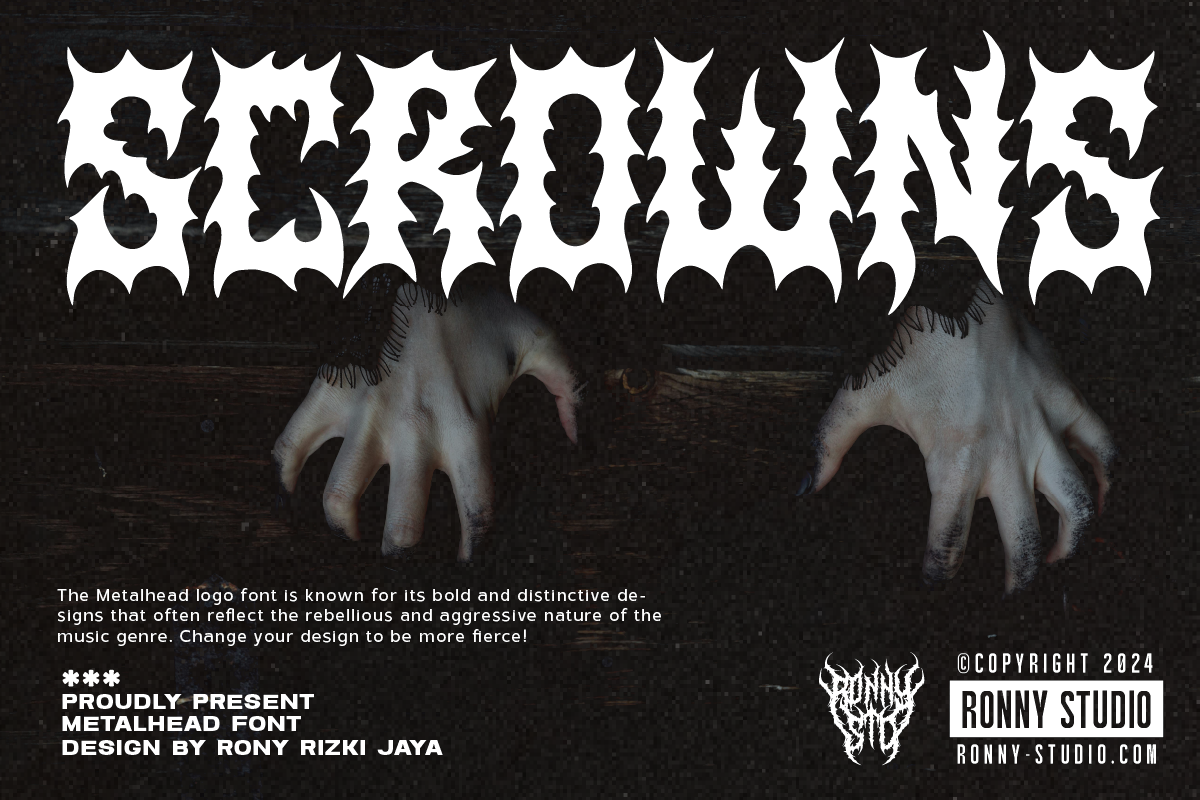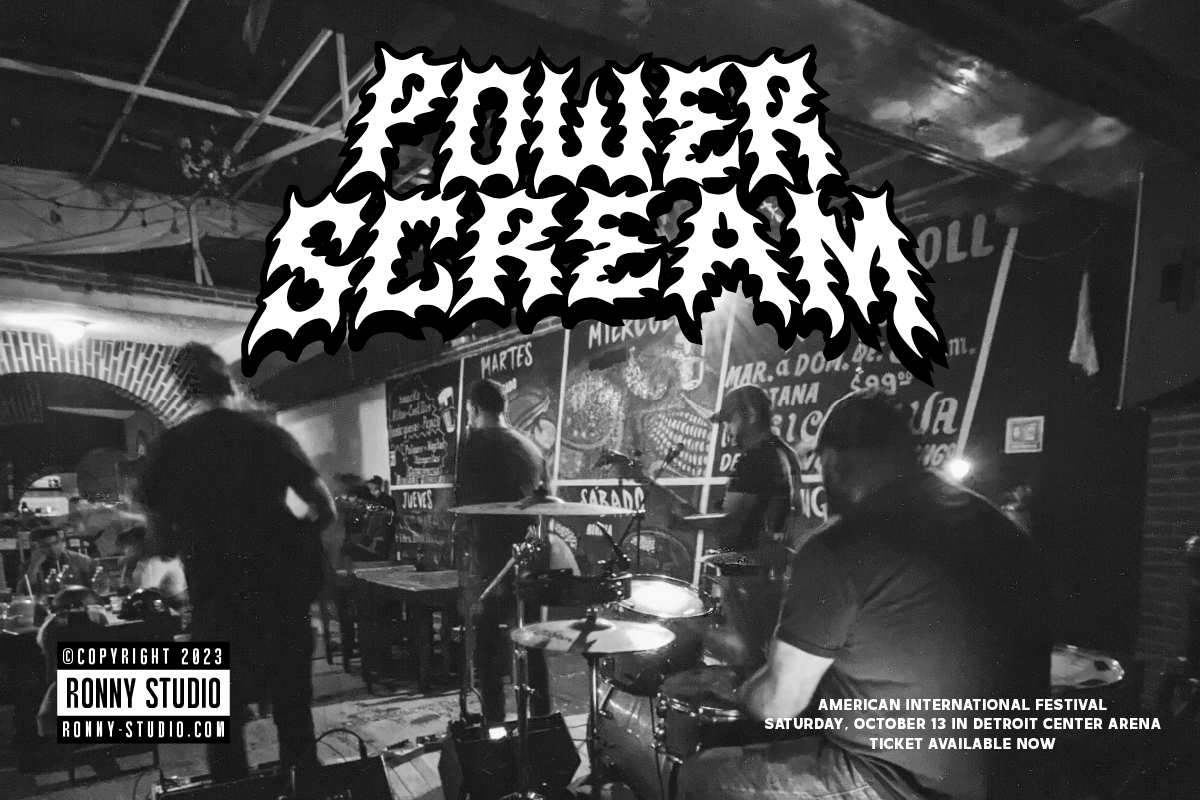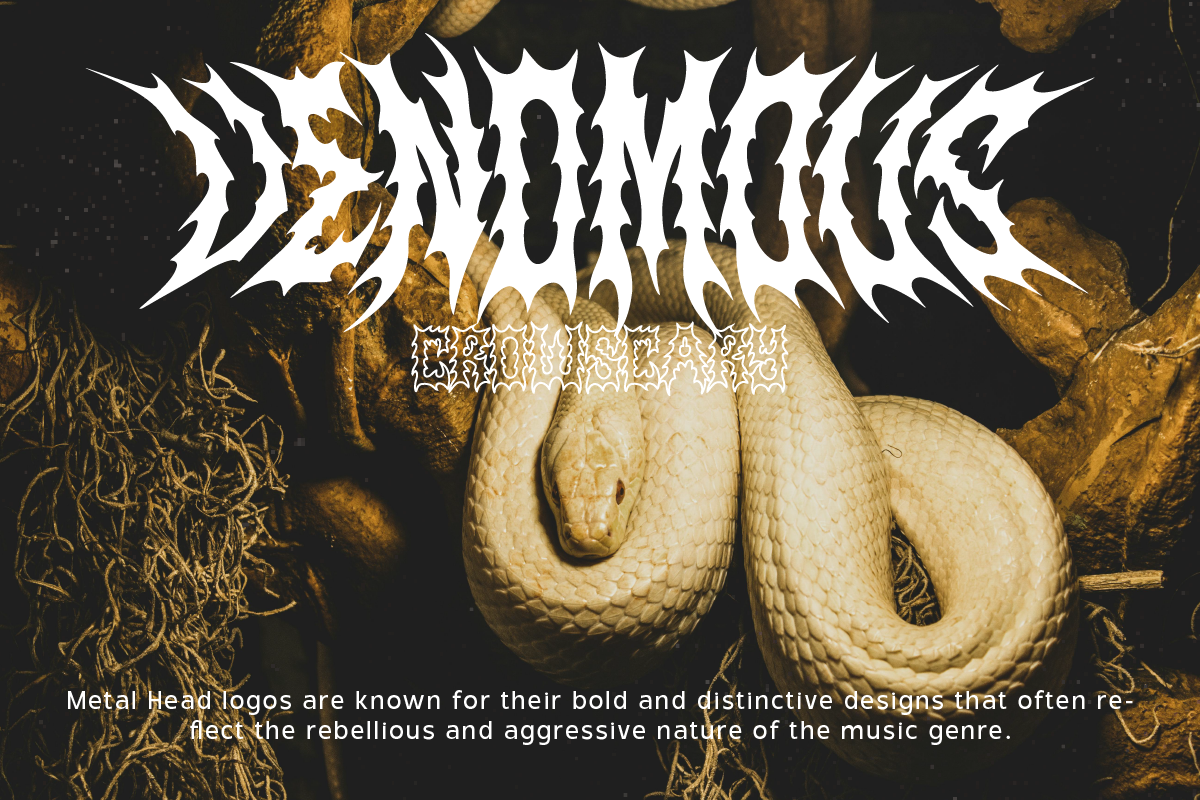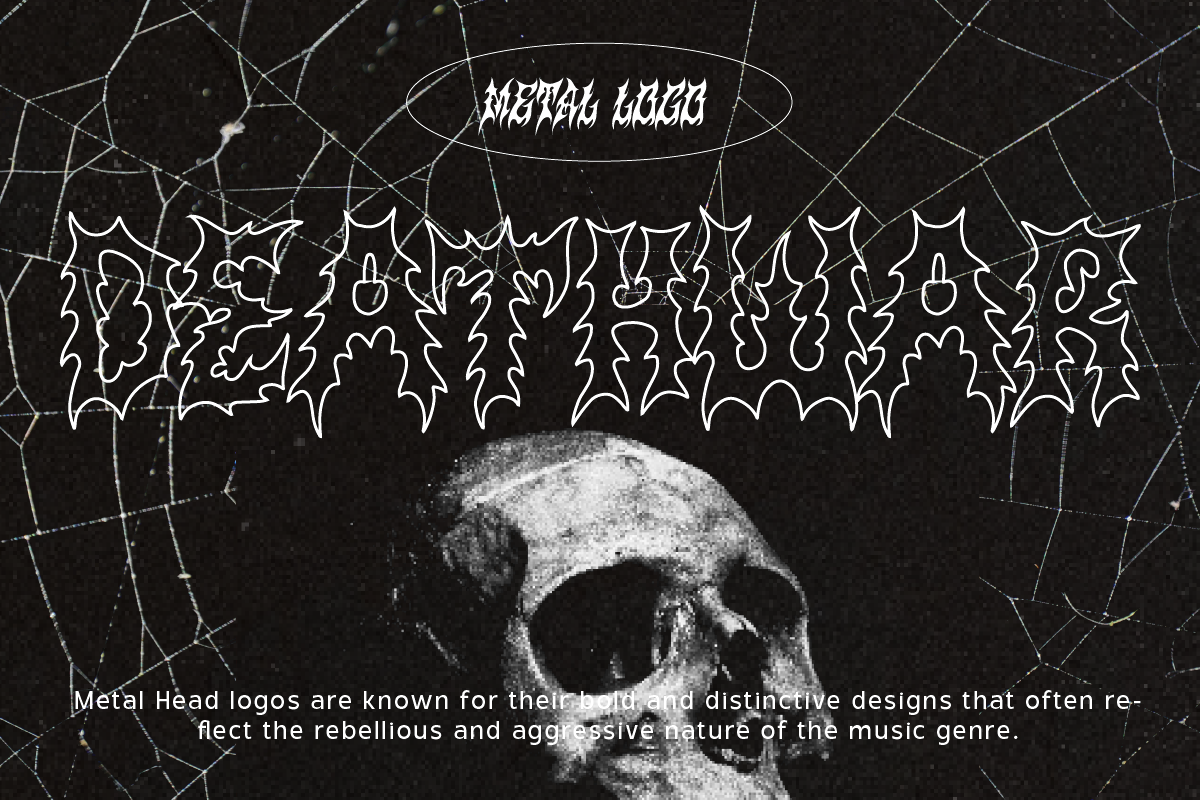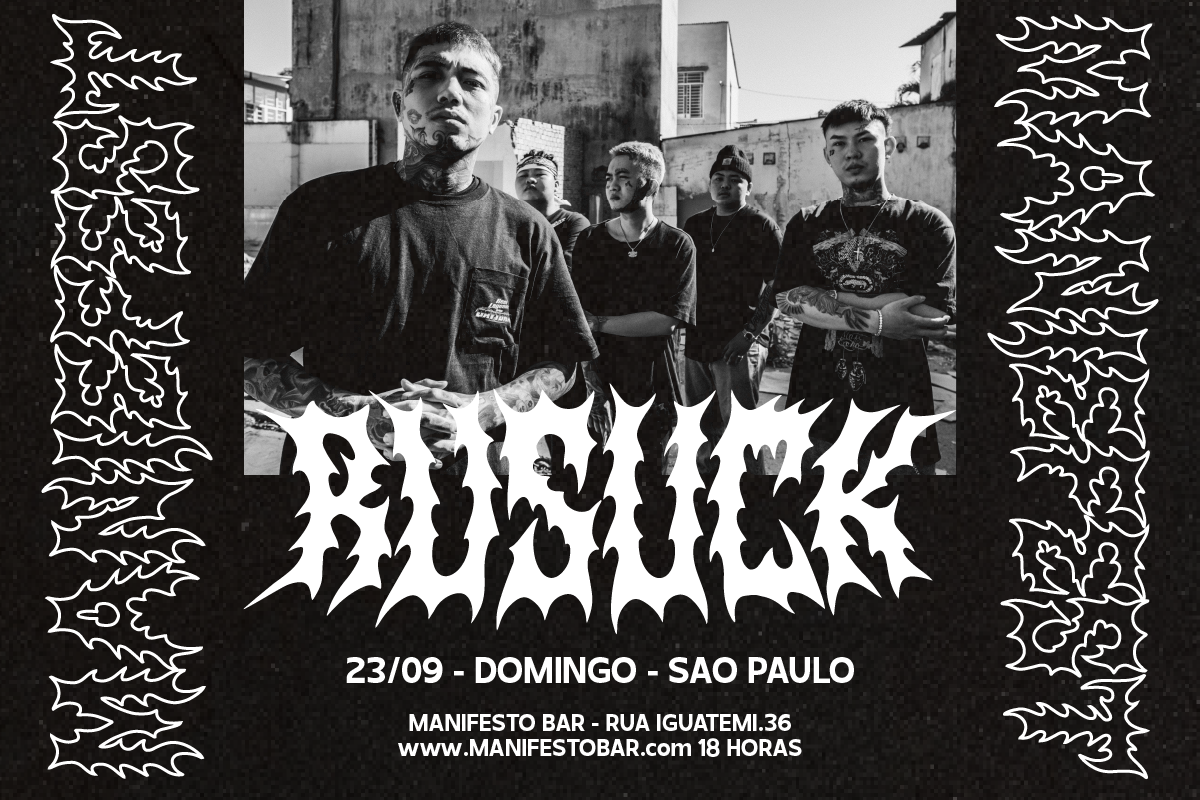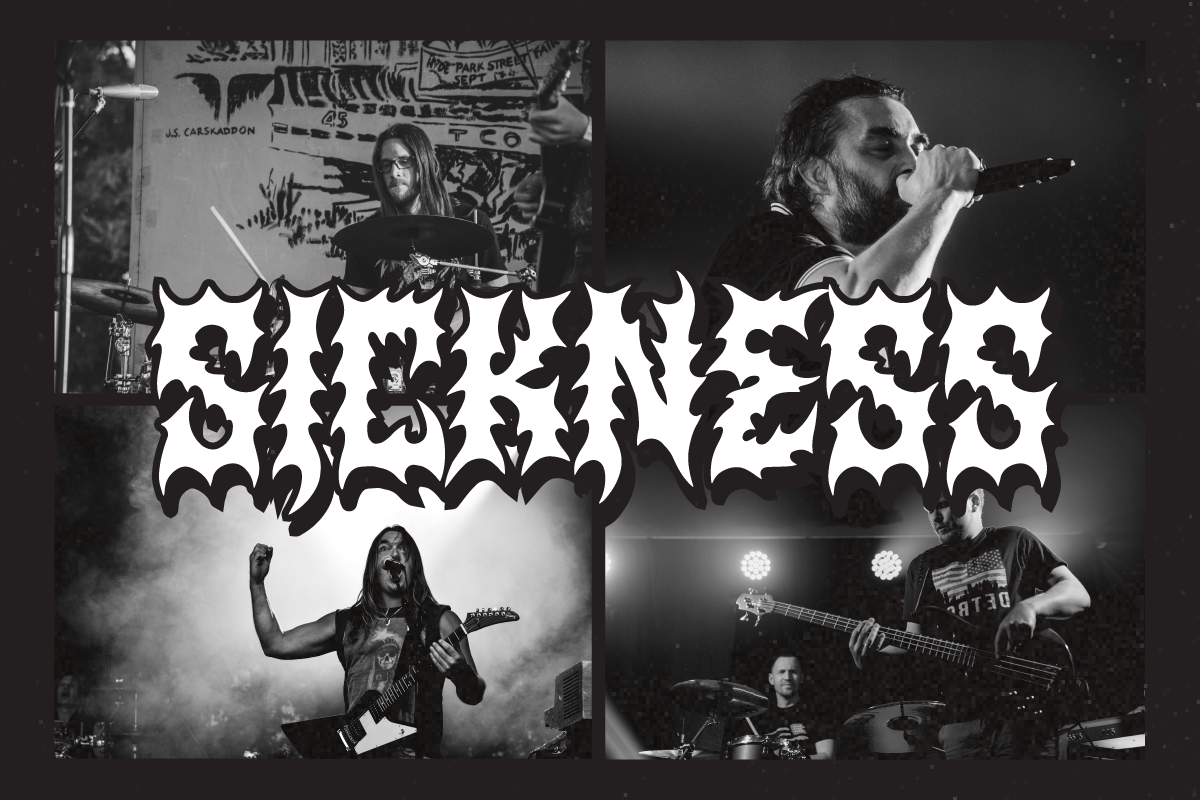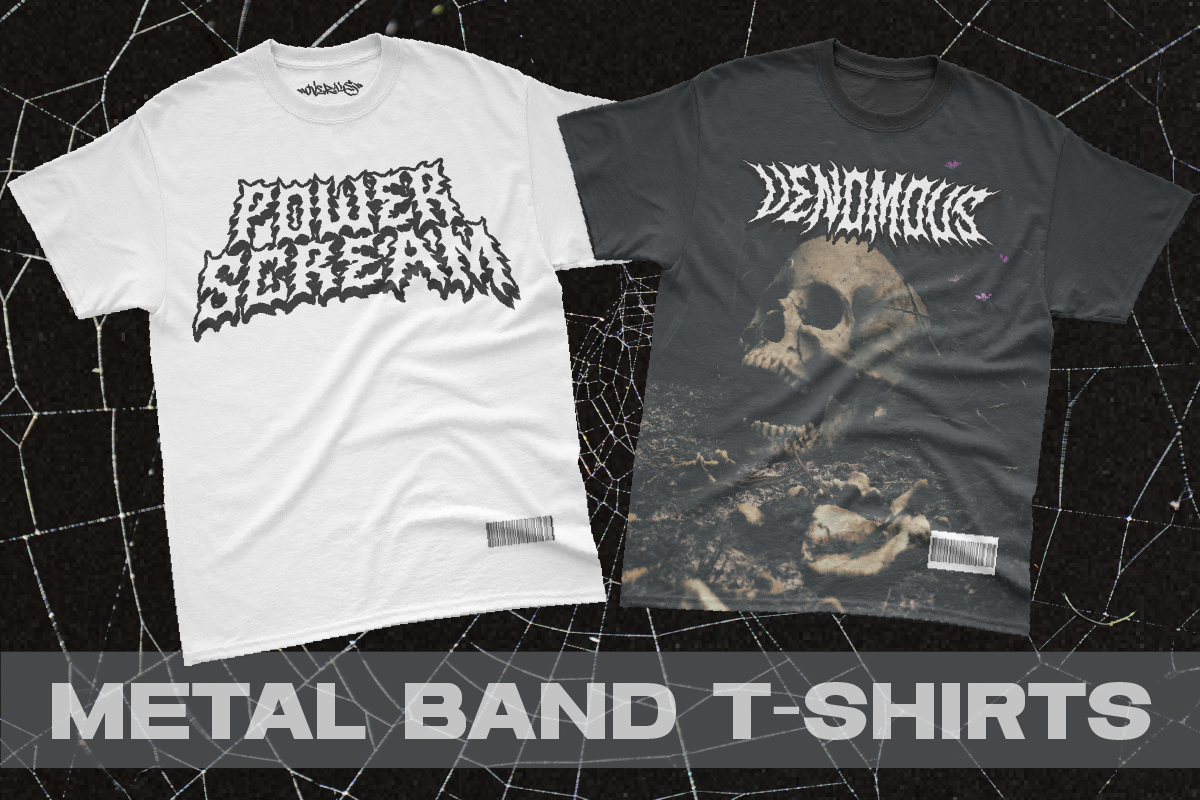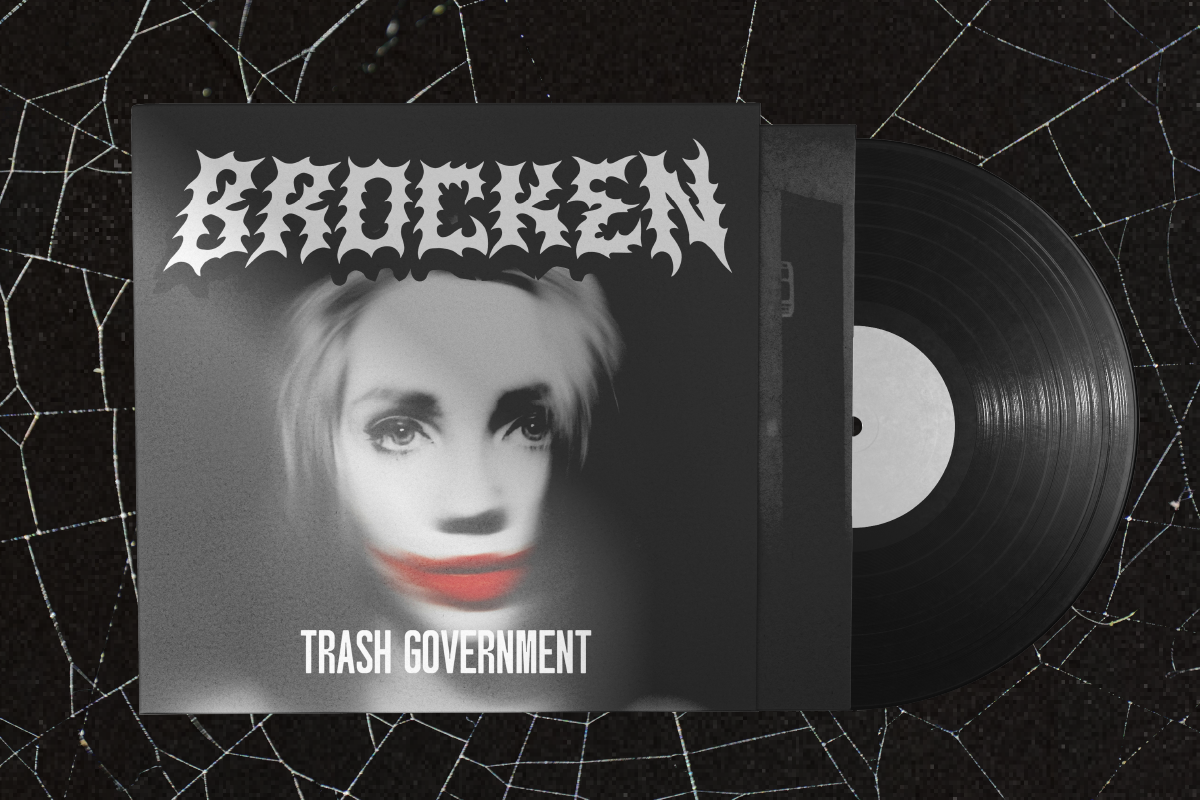
Scrowns - Metalhead Font
The Metalhead logo font is recognized for its bold and distinctive design, capturing the rebellious and aggressive spirit typical of the metal music genre. This font is crafted to add a fierce and intense look to any design, making it ideal for band logos, album covers, posters, and other music-related graphics.
• Uppercase & Lowercase ( All Caps )
• Number & Punctuation
• Ligature & Alternate
• Multilingual Support